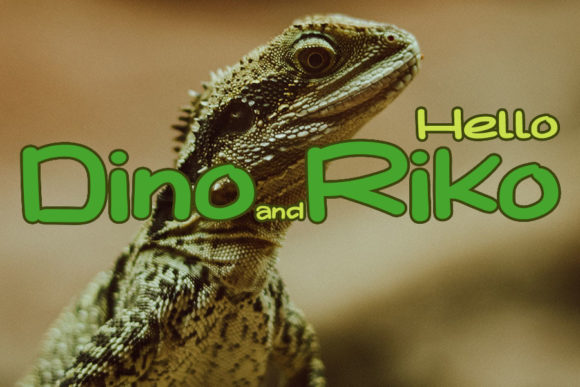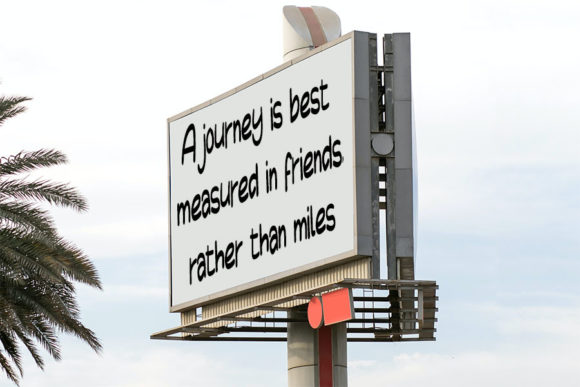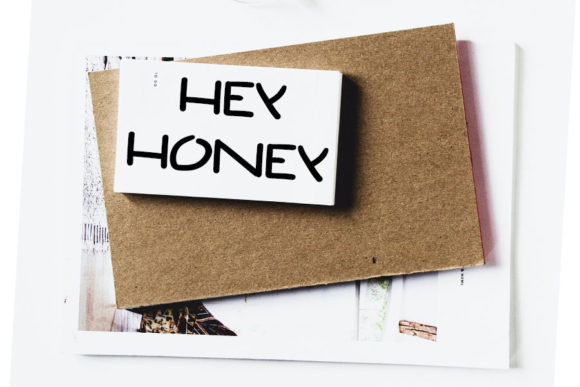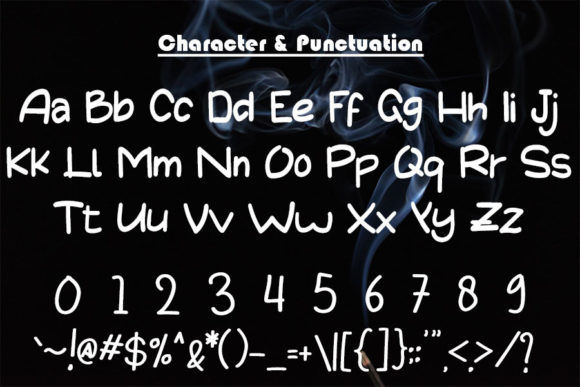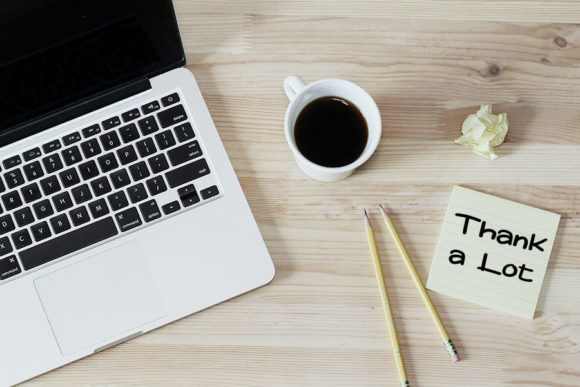
Dino Riko Font
About Dino Riko Font
Dino Riko is a fun and playful script font. Add this chunky lettered font to your designs and notice how it makes them come alive!